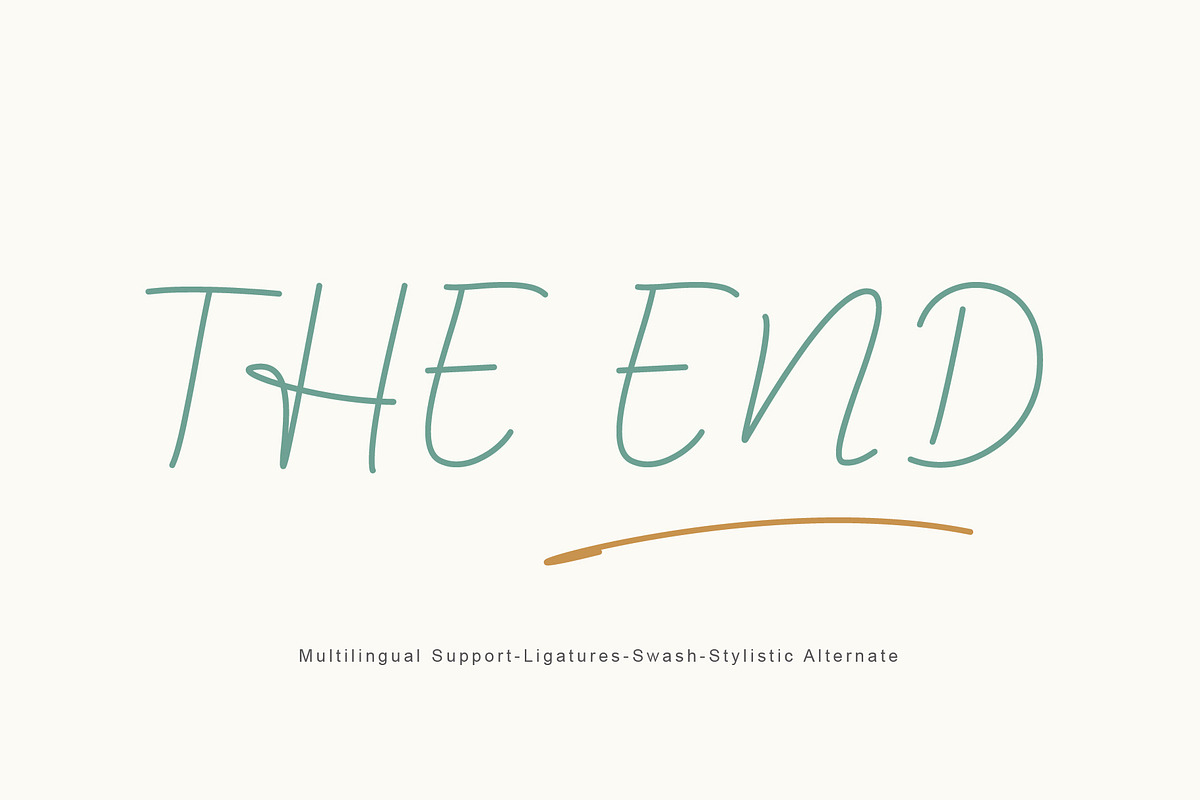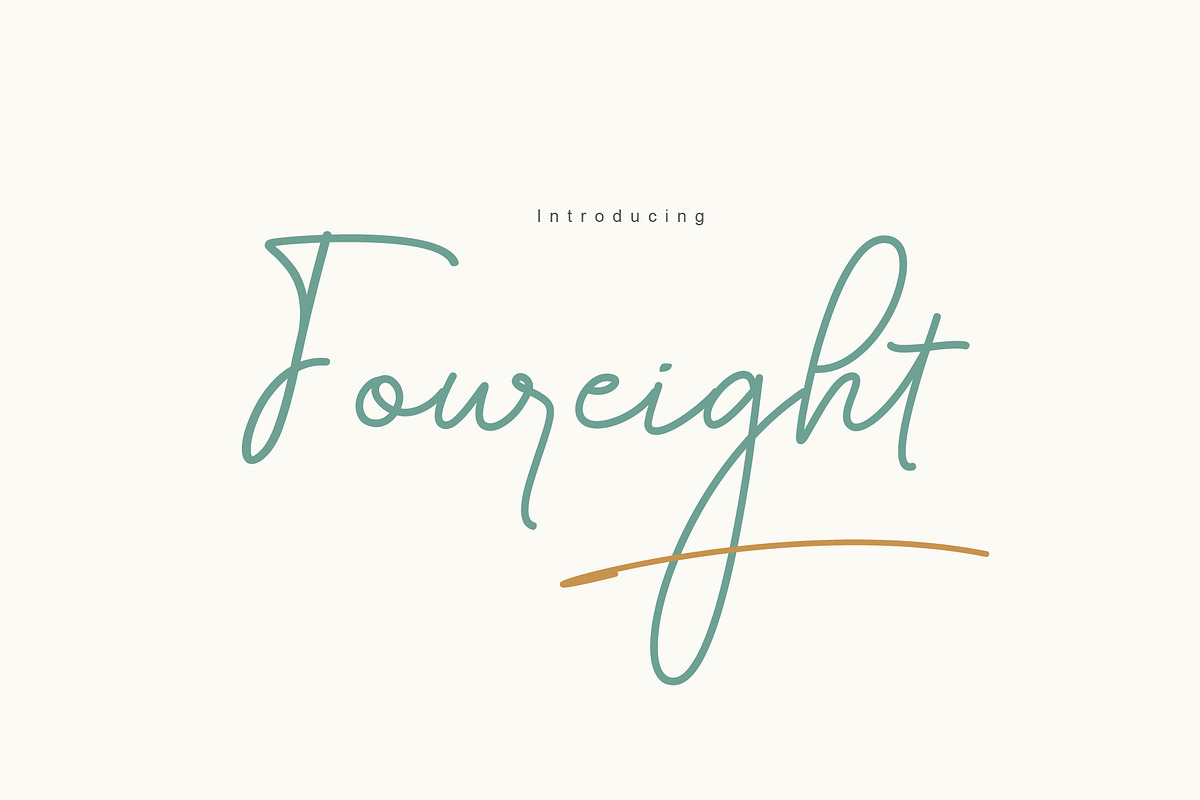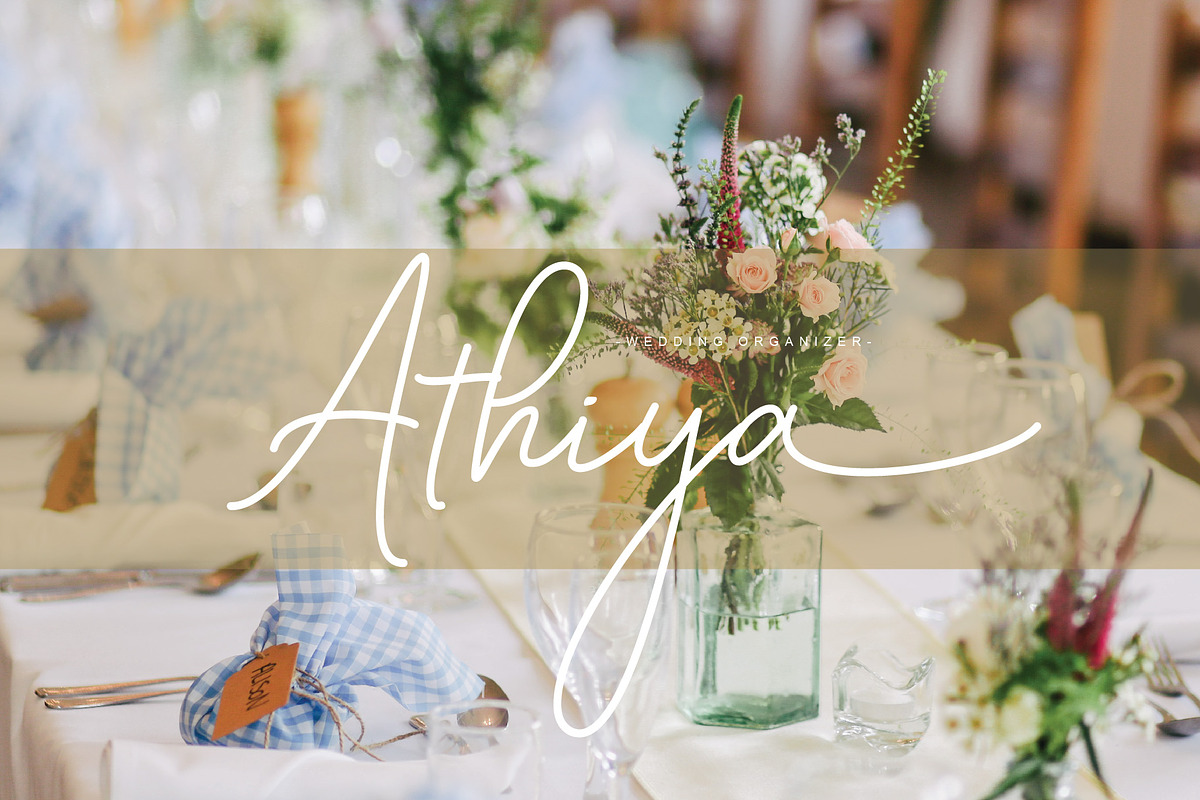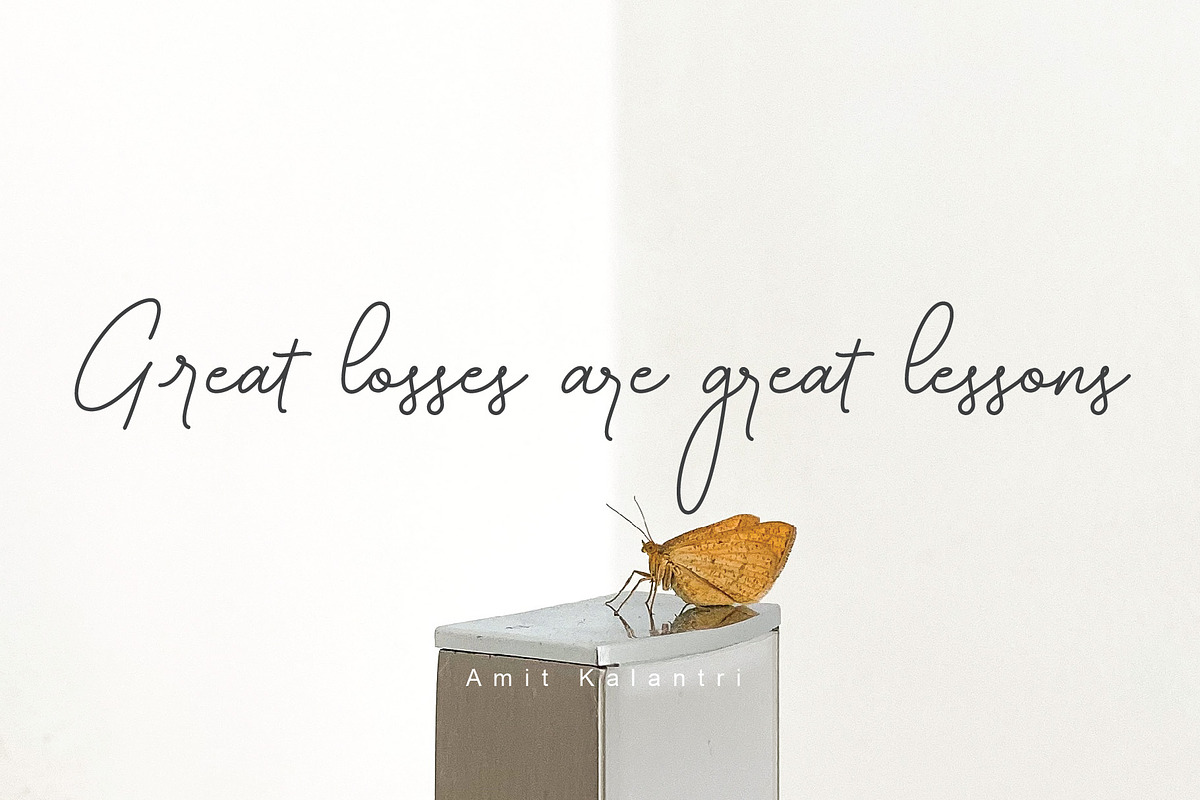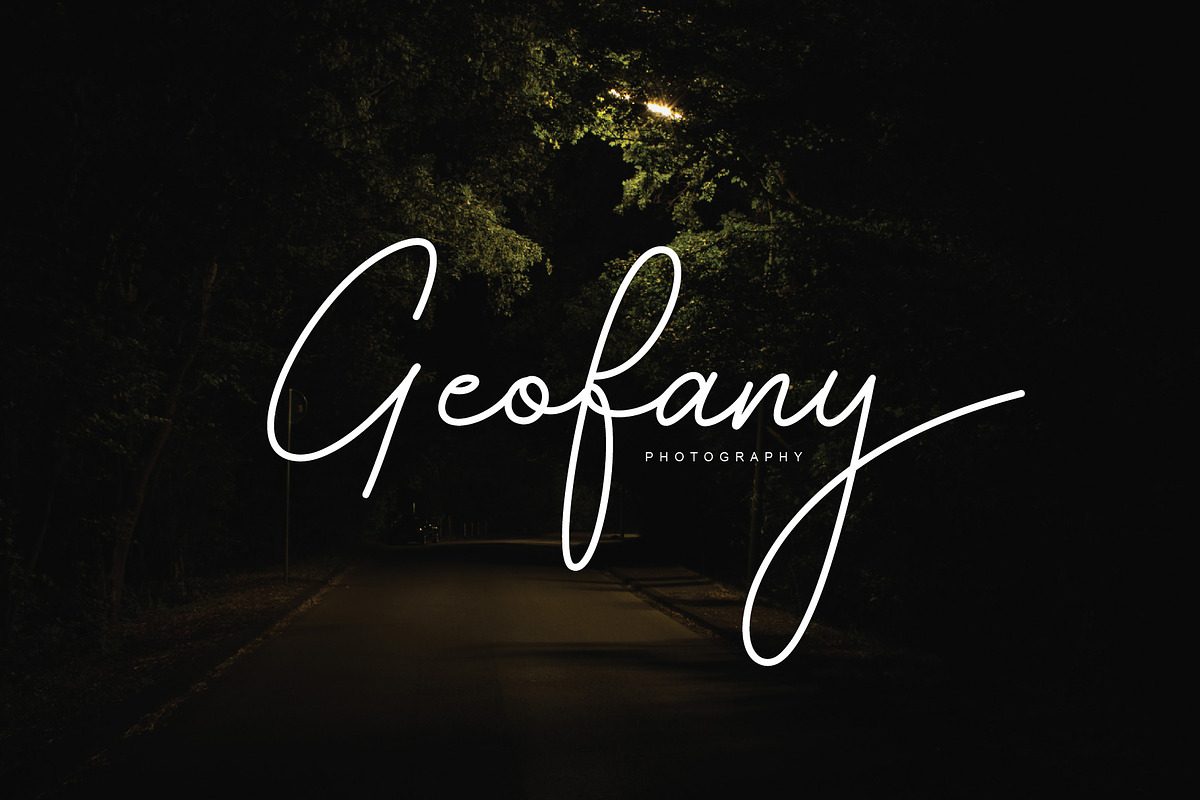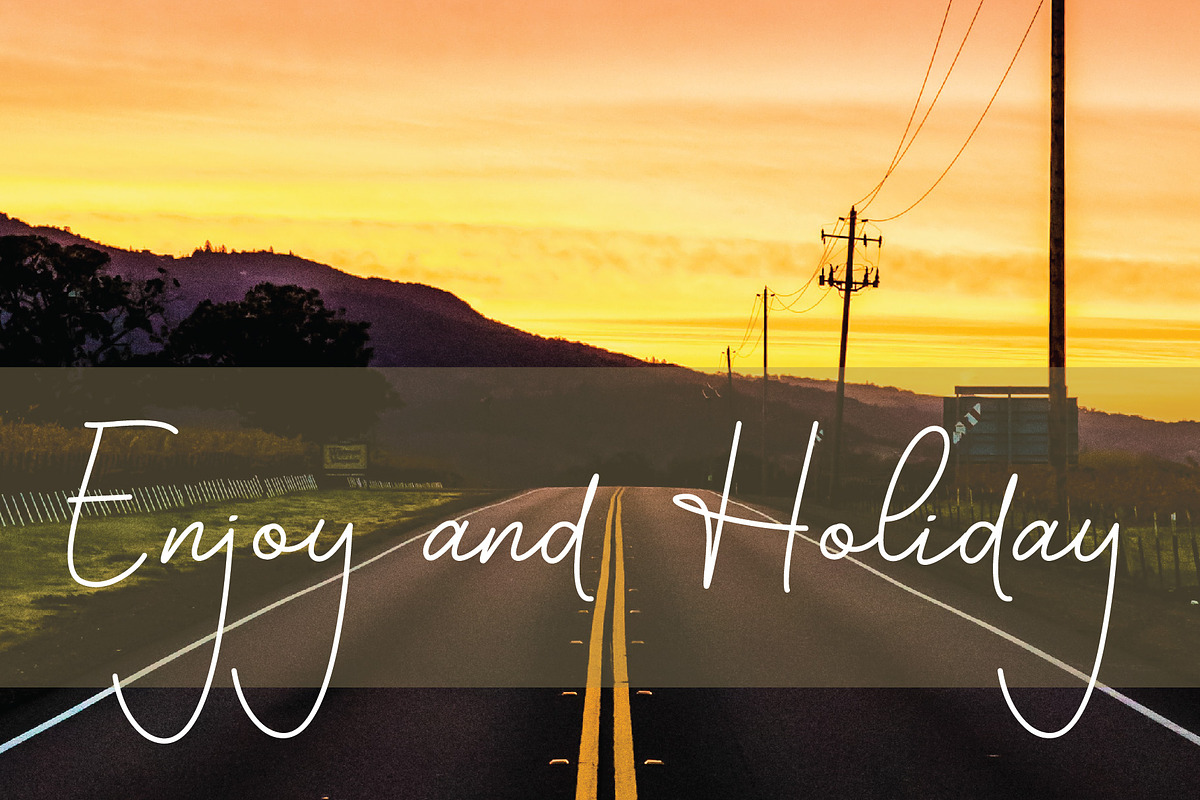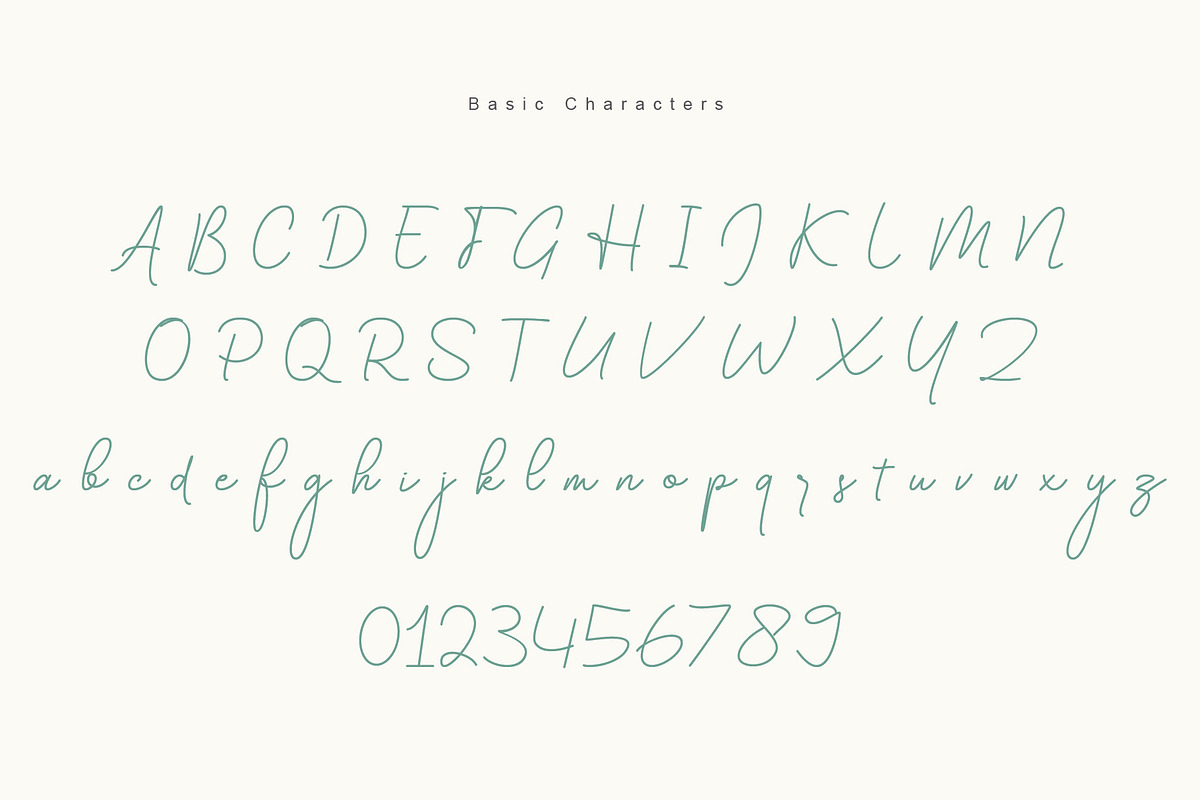
Foureight
I introduce the latest product with the name Foureight. Foureight is a font with a signature type. This font is equipped with multilingual, ligature, swash, and stylistic alternate so that it becomes many choices for you to use. This font can be used for signature, brand, invitation, advertising, web, banner and more.